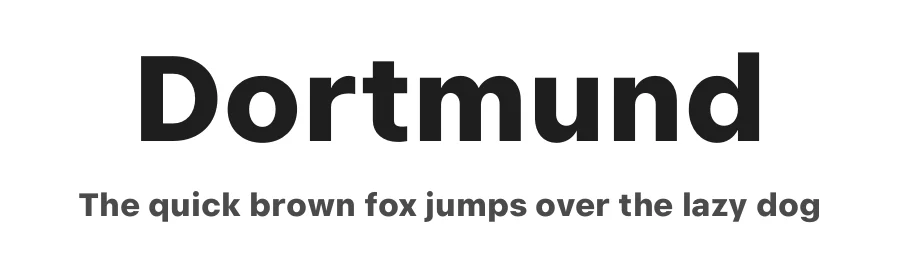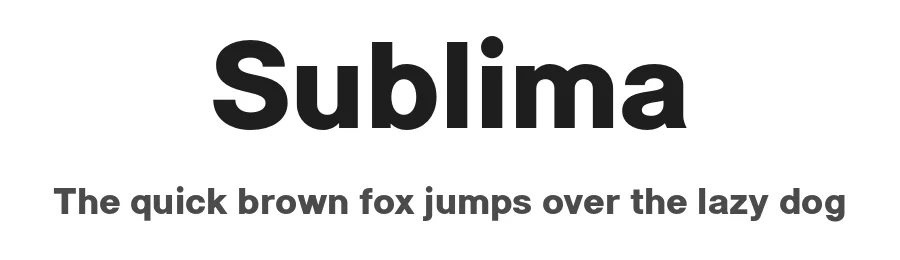
About Garute Font
Garute is a sans-serif font designed by MJType. It includes 215 glyphs, a black weight, TTF (TrueType) format, and 210 languages. Garute is free to download; check the license details on this page before commercial use. Sans-serif fonts like Garute work best for clean body text, user interfaces, branding, and modern layouts.
- Heavy, Clean, Modern, Basic
Garute Font is a versatile sans-serif font that works for both headings and body text. Pair it with a contrasting serif or slab serif font to add visual interest and a clear distinction between titles and body copy.